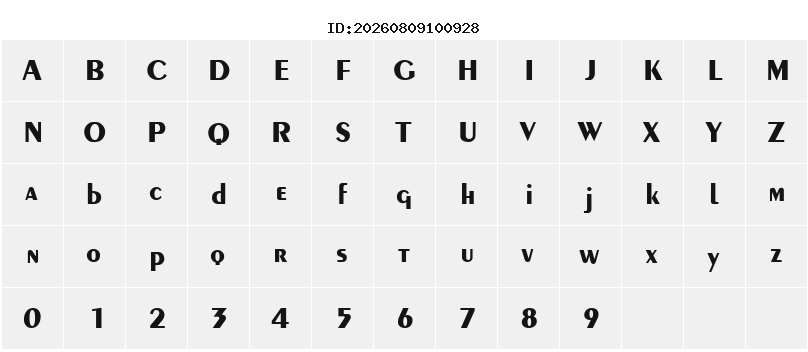
Penyae Preview
• Font Name: Penyae
• Font Style: Gras
• Font ID: Weatherly Systems, Inc. Penyae Bold
• Full Font Name: Penyae Gras
• Version: Publisher's Paradise -- Media Graphics International Inc.
• PostScript Name: PenyaeBold
• Character Count: 225
About Penyae.ttf
Penyae.ttf is a modern, elegant sans-serif font designed for ultimate readability and visual harmony. Perfect for branding, headlines, web design, and print materials.